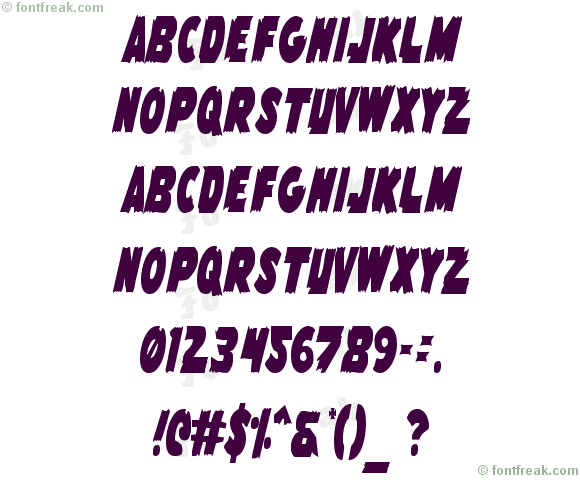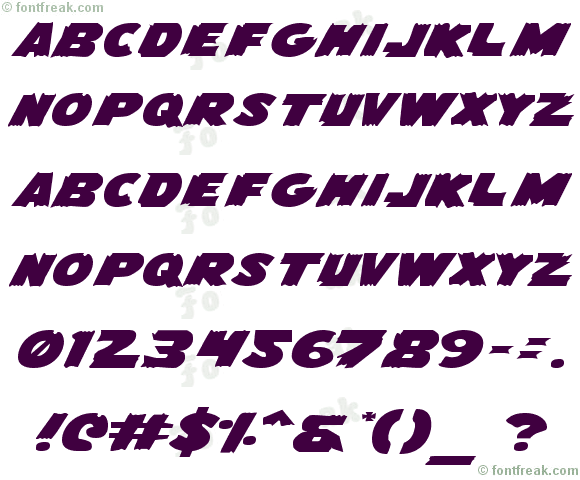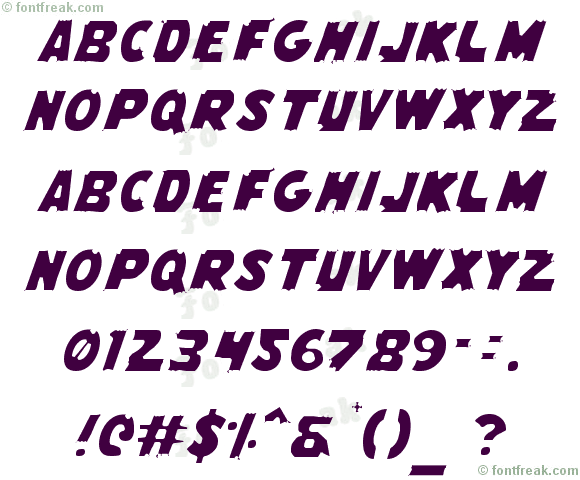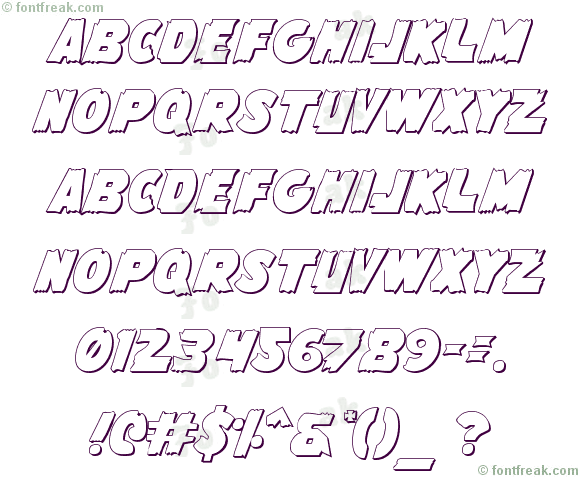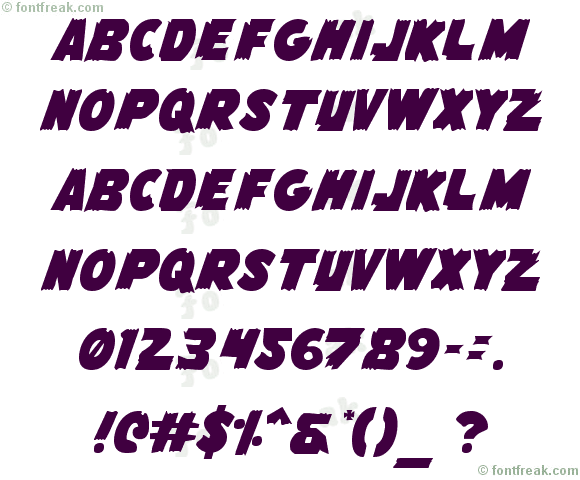
Flying Leatherneck
About Flying Leatherneck
The Flying Leatherneck font by Iconian Fonts is a striking display typeface that falls into the category of decorative fonts. First released in 2002, this font features bold, condensed letterforms that are characterized by a unique outline style and a lively sense of motion. The strokes are thick and dynamic, creating an impression of strength and vigor, with a slight contrast that adds visual interest. The letters are spaced closely together, making them ideal for impactful headlines or attention-grabbing titles.
This font is particularly well-suited for a variety of creative applications. Its bold appearance makes it a fantastic choice for movie posters, where it can convey action and excitement. It can also elevate restaurant menus, giving them a distinctive flair that attracts diners’ attention. Additionally, the Flying Leatherneck font is perfect for sports team branding, event promotions, and even graphic novels where an adventurous spirit is desired. Content creators looking to enhance their projects with a unique touch will find this font to be a valuable asset.
What truly sets the Flying Leatherneck font apart is its energetic and rugged aesthetic, which evokes a sense of adventure and rebellion. This font is not just a typeface; it is a visual statement that captures the essence of excitement and boldness. For those looking to make a lasting impression, the Flying Leatherneck font free download offers an excellent opportunity to enhance their design projects.